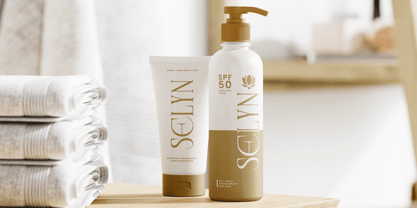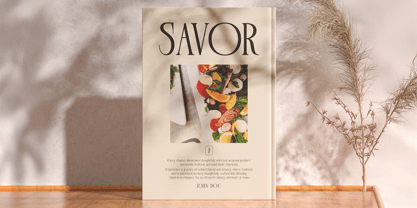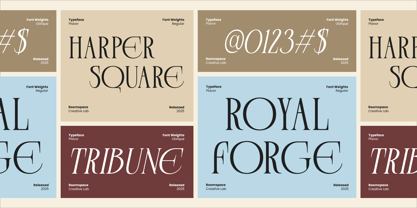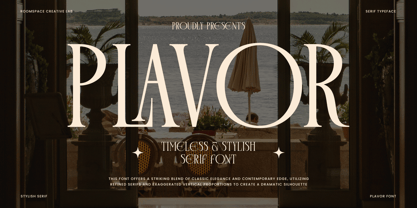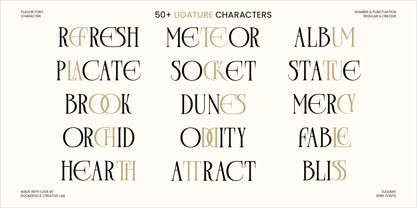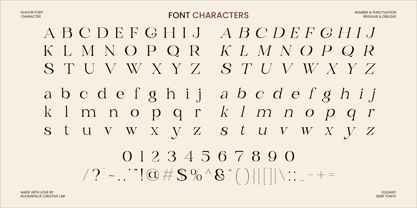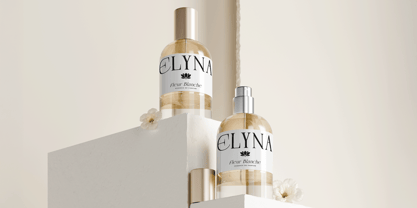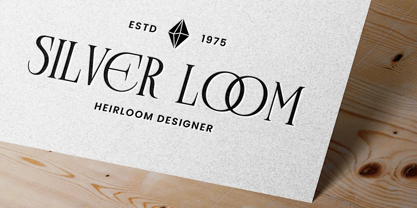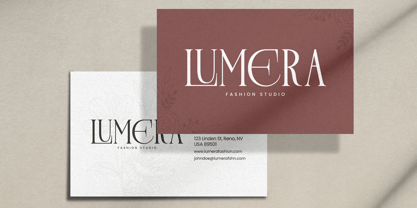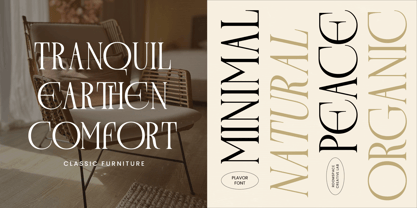
Plavor
by Jafar07
The Plavor Font Family was designed by Bakhrudin Ja'far and published by Jafar07. Plavor contains 2 styles and family package options. More about this family
Plavor is a timeless and stylish serif font that captures the essence of refined luxury. It combines the grace of classic typography with a modern edge, resulting in a sophisticated typeface that feels both contemporary and eternal. Designed for creators who value elegance, Plavor adds depth, confidence, and poise to every visual composition. Every letter in Plavor is meticulously designed with tall proportions, fine serifs, and harmonious spacing to achieve perfect balance and readability. Its sleek curves and exaggerated vertical details give it a bold yet graceful presence. With OpenType features, multilingual support, and refined kerning, Plavor adapts beautifully to any layoutwhether on digital platforms or in print. Perfect for branding, magazine covers, packaging, wedding stationery, and editorial designs, Plavor enhances your project with a luxurious, timeless aesthetic. Whether used for headlines or logotypes, this serif font adds a striking sense of sophistication. Add Plavor to your font collection today and elevate your designs with classic beauty and modern flair.
Designers: Bakhrudin Ja'far
Foundry: Jafar07